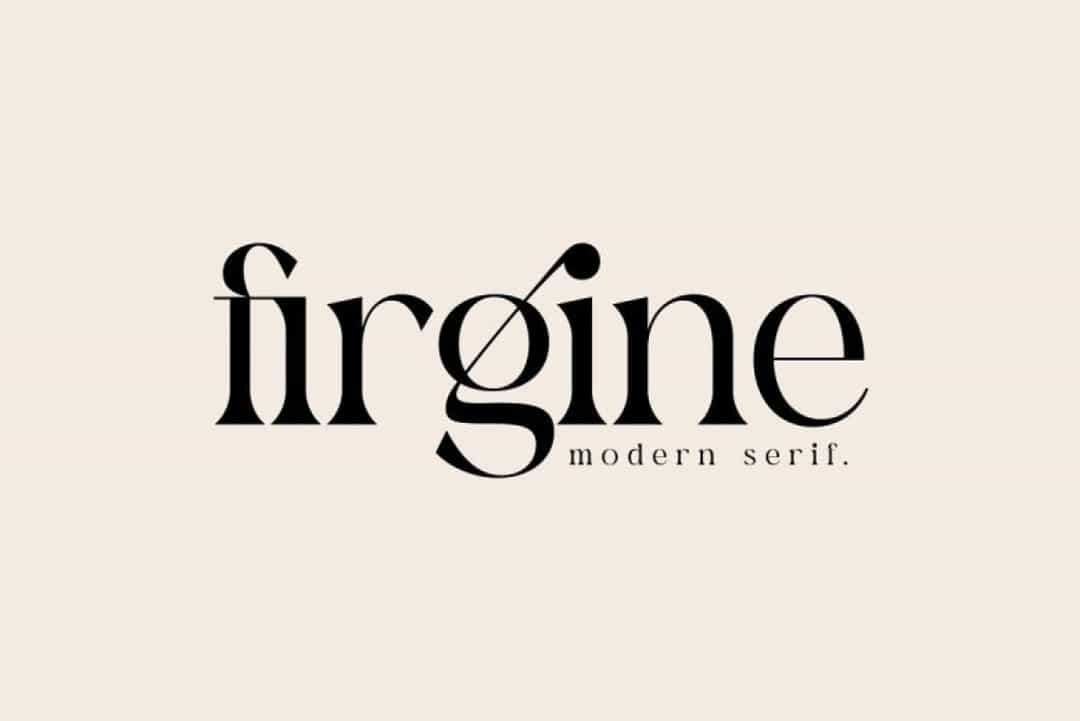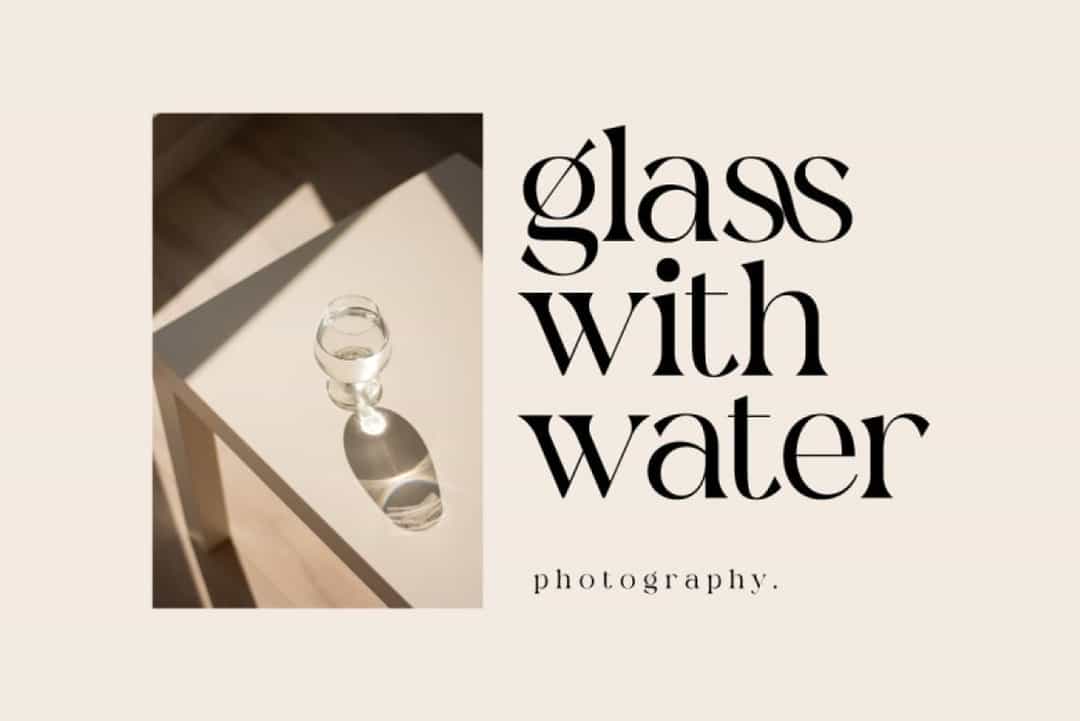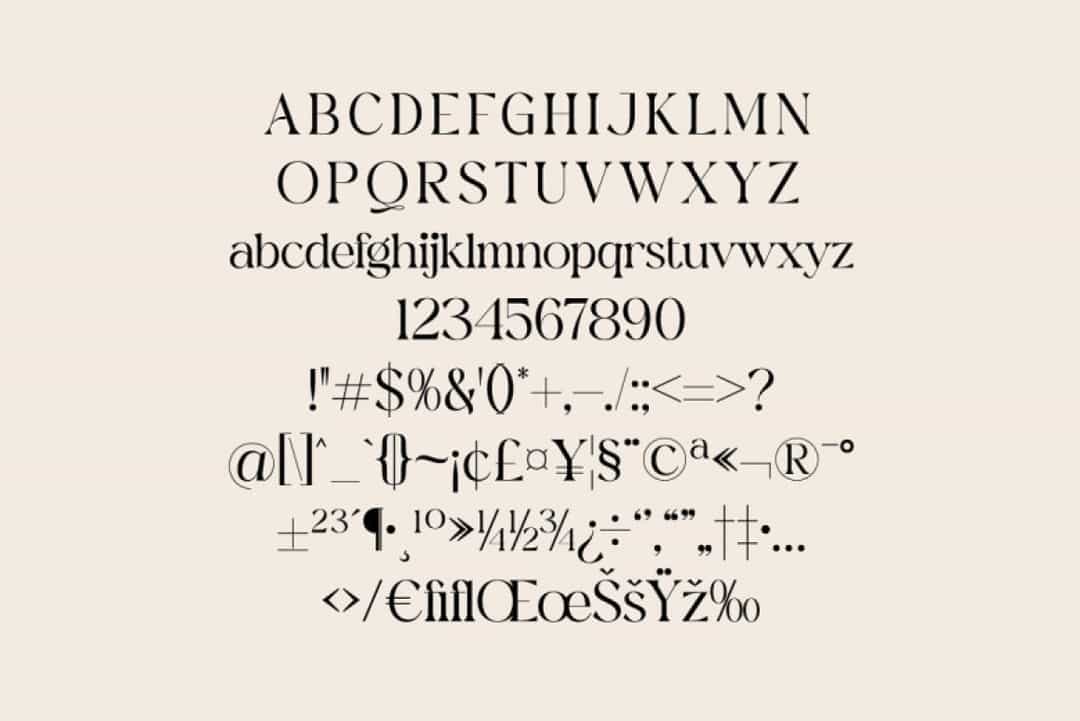
Storytype’s Firgine Serif Font is an elegant modern serif typeface with distinctive style and modern appeal, which can be used for sophisticated logos, book/film titles, clothing brands clothing magazines letters quotes and much more. This typeface would work beautifully as part of sophisticated logo designs or classic titles and quotes in letters etc.